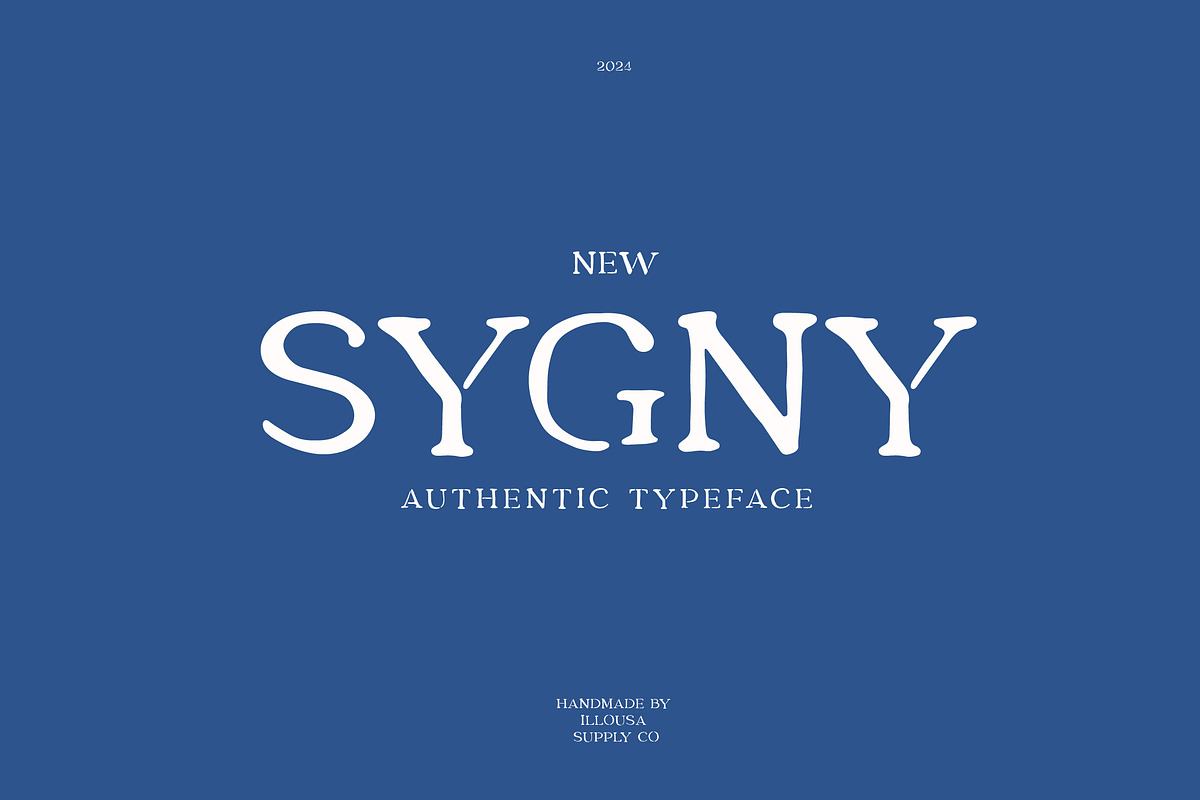
Sygny Serif Typeface Free Download is a sophisticated and modern serif typeface designed with clean lines and timeless elegance. It features well-defined serifs, balanced proportions, and subtle details that make it ideal for high-end branding, editorial design, websites, and professional marketing materials. Whether you’re creating logos, magazine layouts, or packaging, Sygny adds both style and readability to your typography.
Its refined, classic look ensures it stands out in both large headlines and smaller body text, making it a versatile choice for a wide range of design projects.